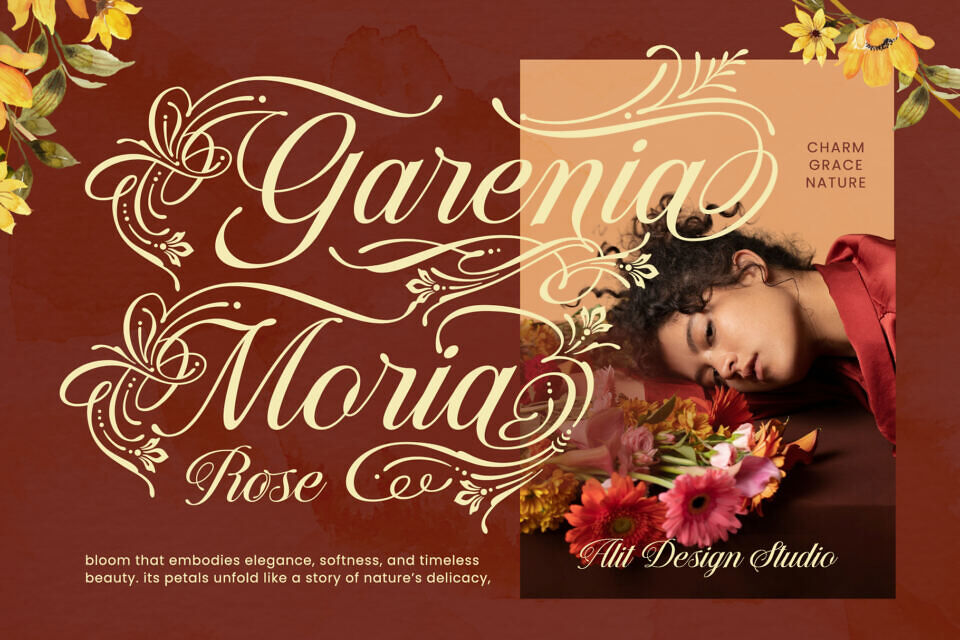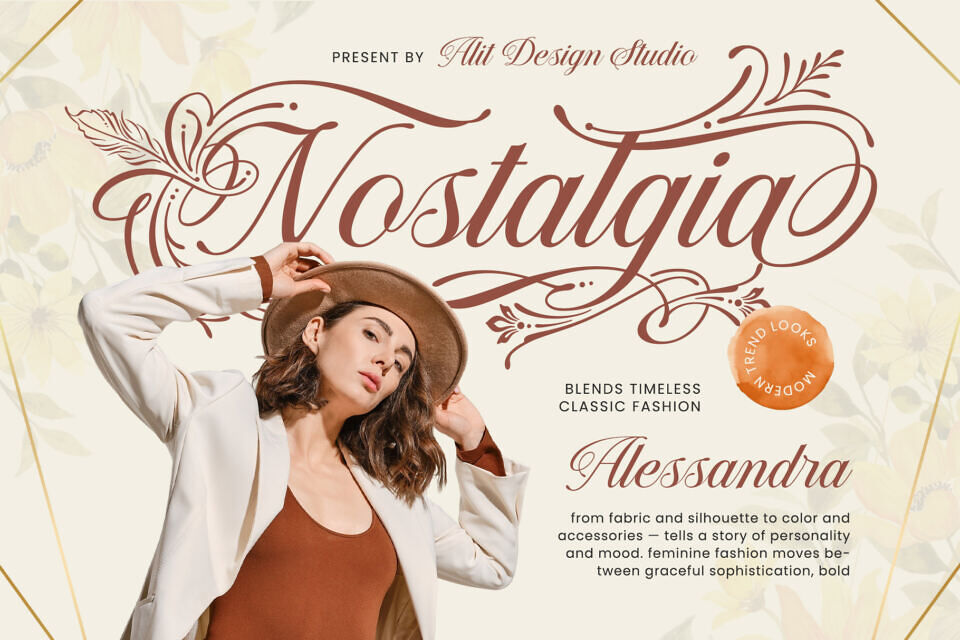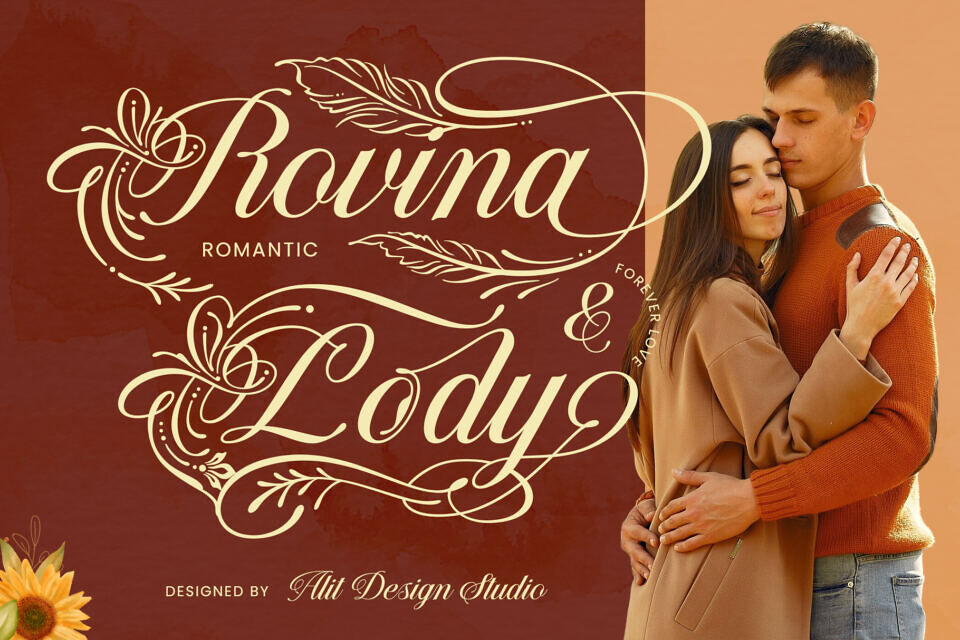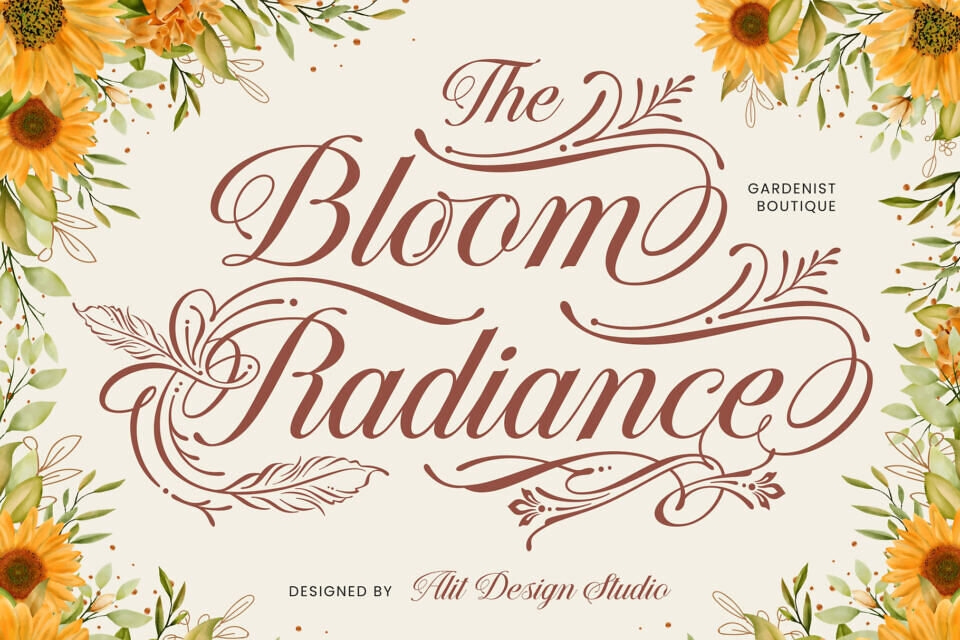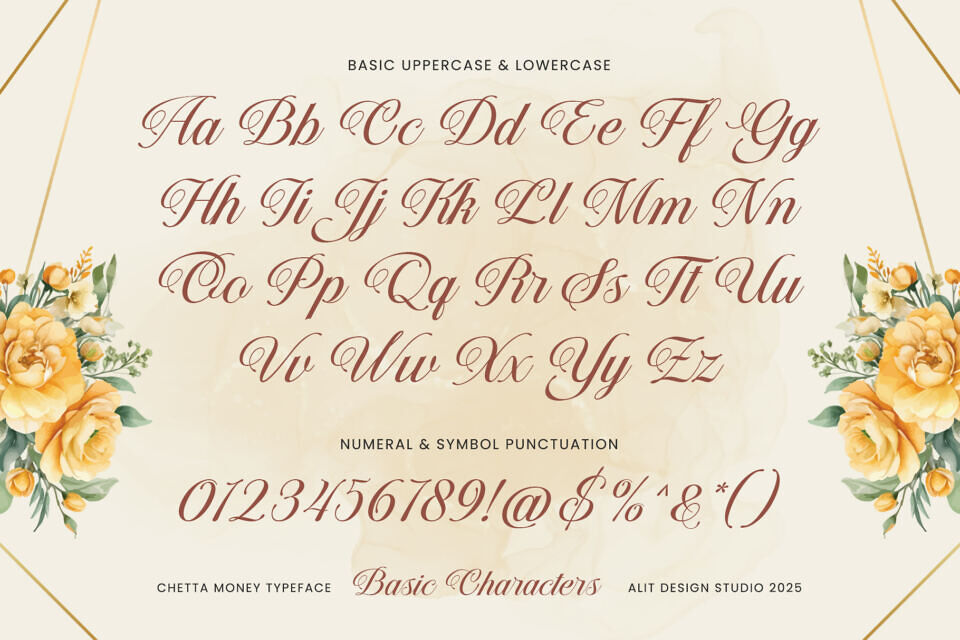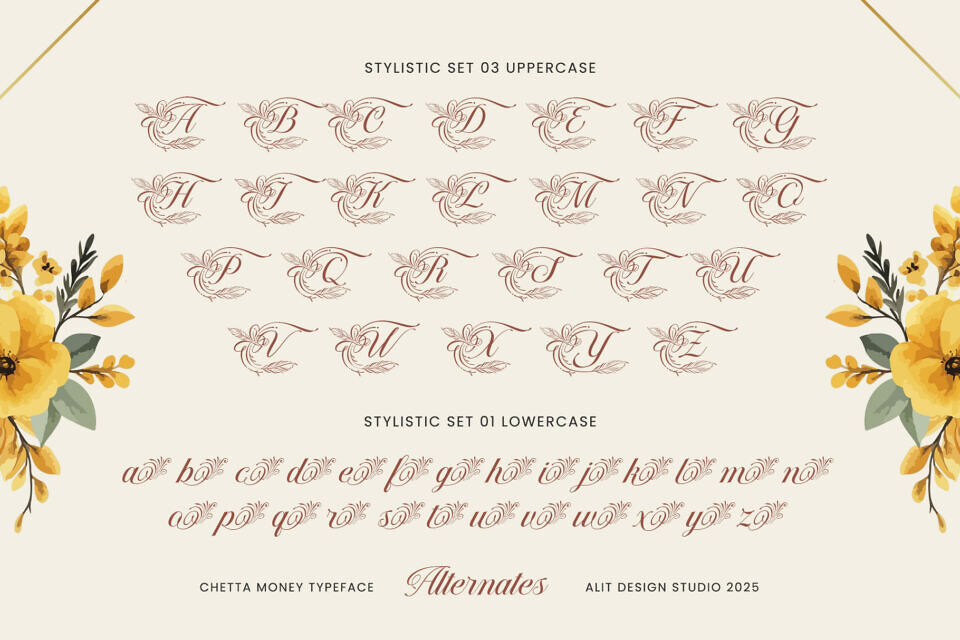
Chetta Money Font
Chetta Money, crafted by Alit Design Studio, is a refined script typeface that seamlessly blends timeless elegance with organic charm. Inspired by graceful calligraphy and the beauty of nature, its fluid lines and delicate flourishes bring sophistication to any project.
Featuring over 888 versatile glyphs, including swashes and stylistic alternates, Chetta Money is ideal for luxury branding, wedding invitations, editorial layouts, packaging, social media graphics, book covers, and stationery—making it the perfect choice for designers seeking artistry and refinement.